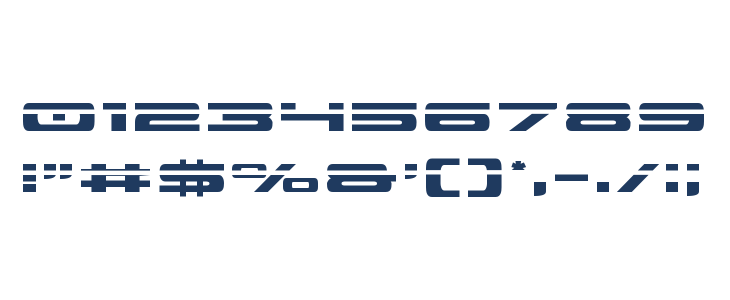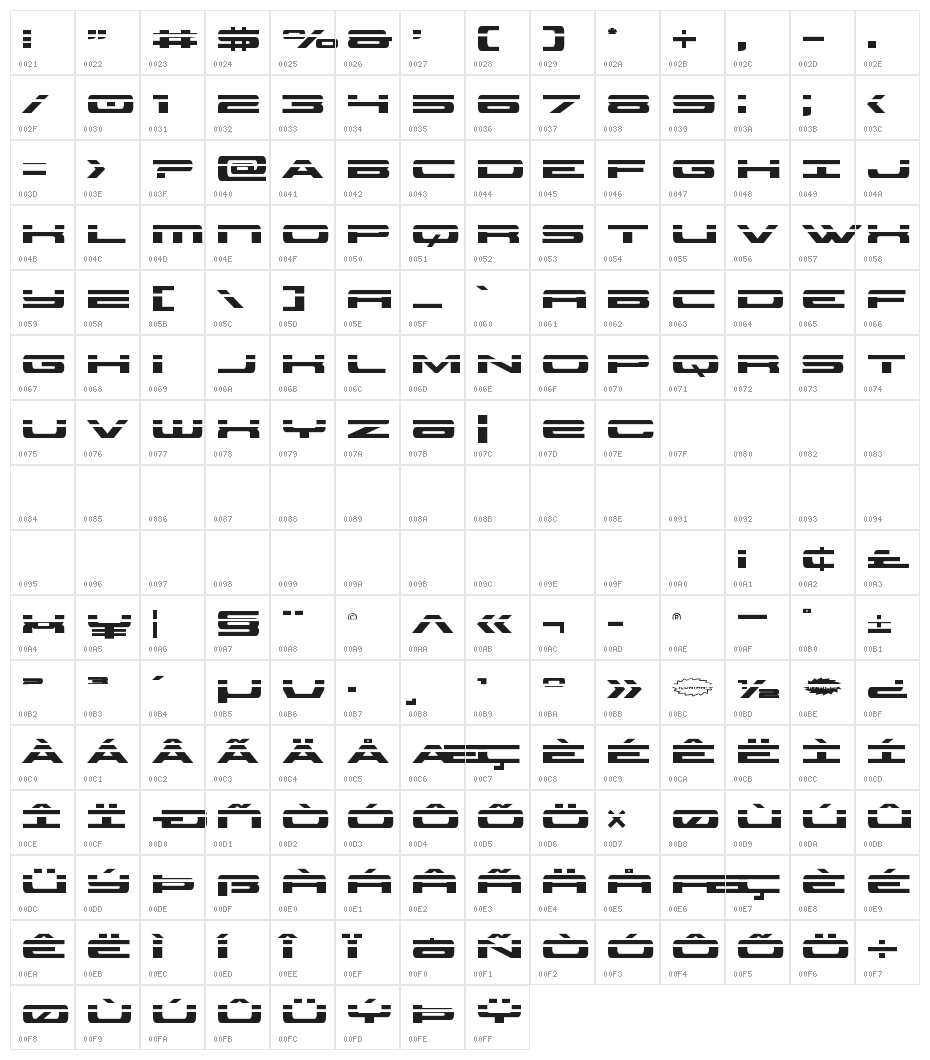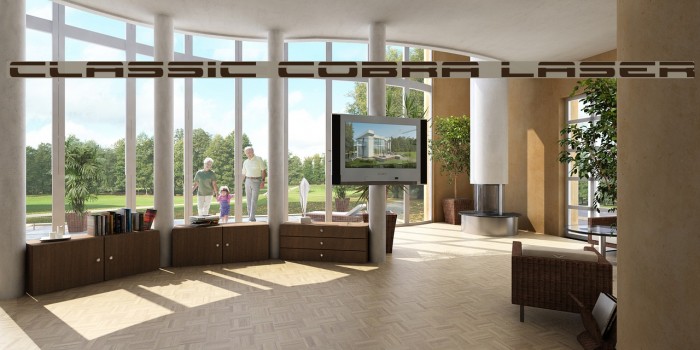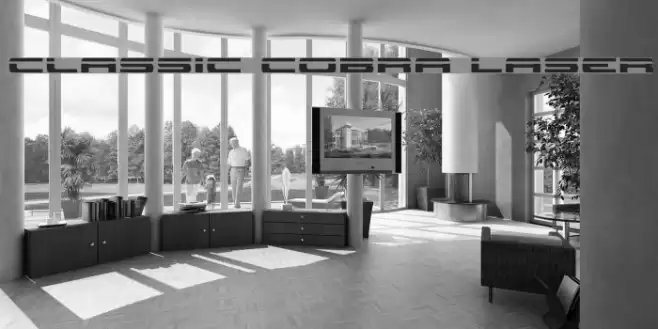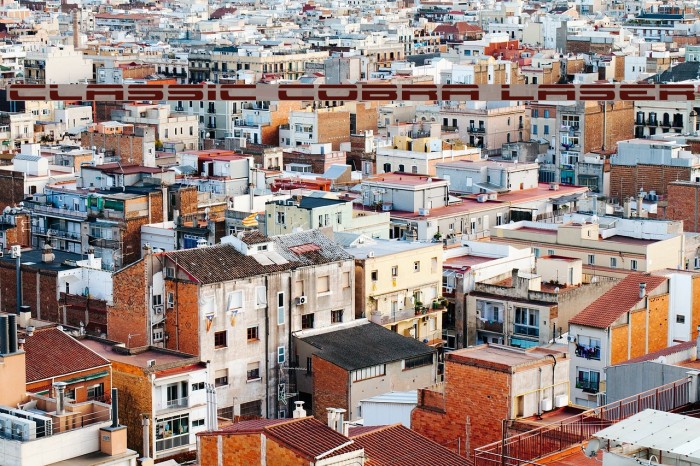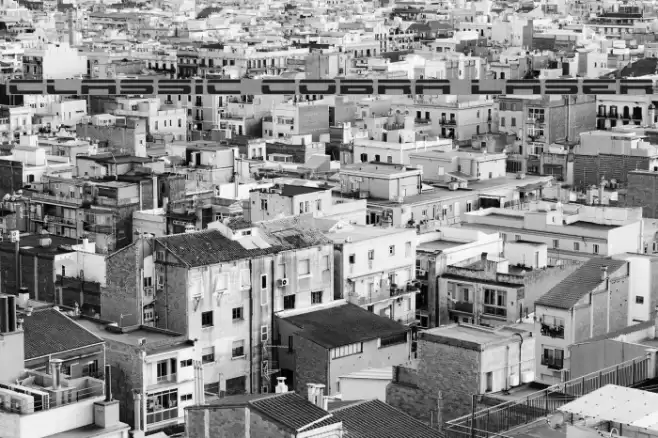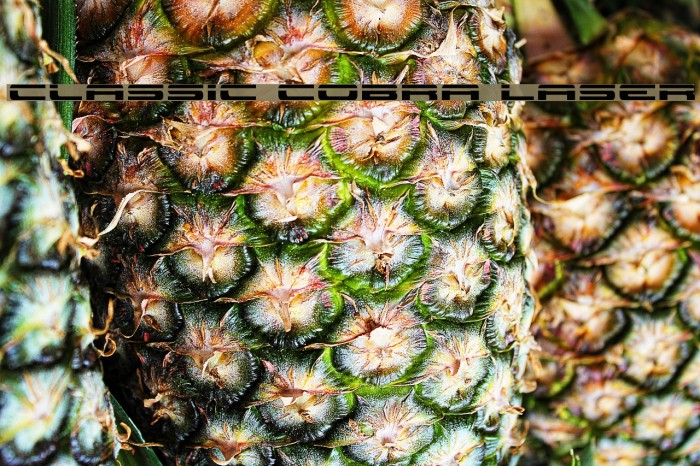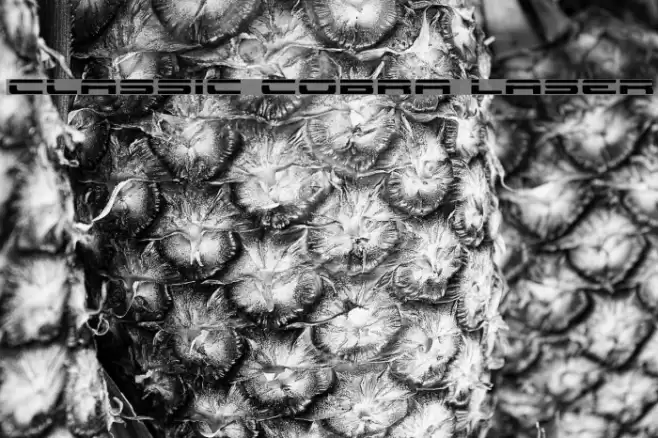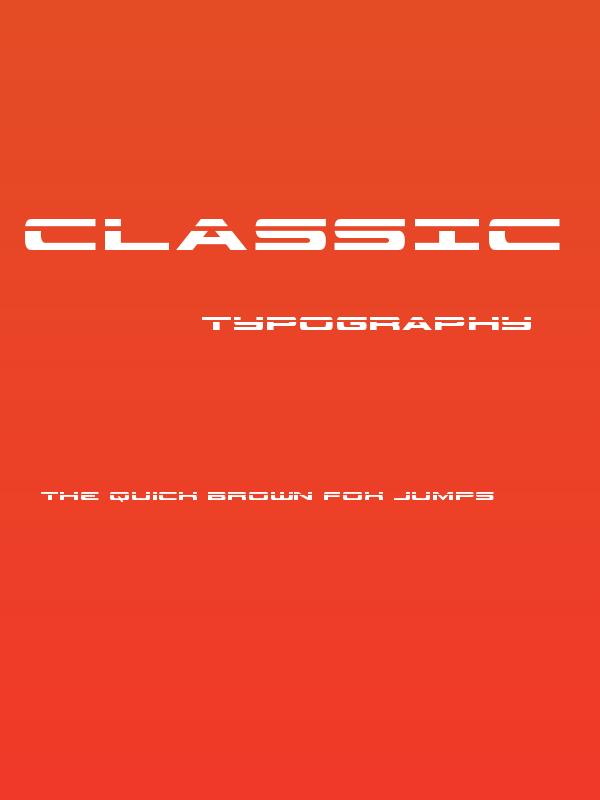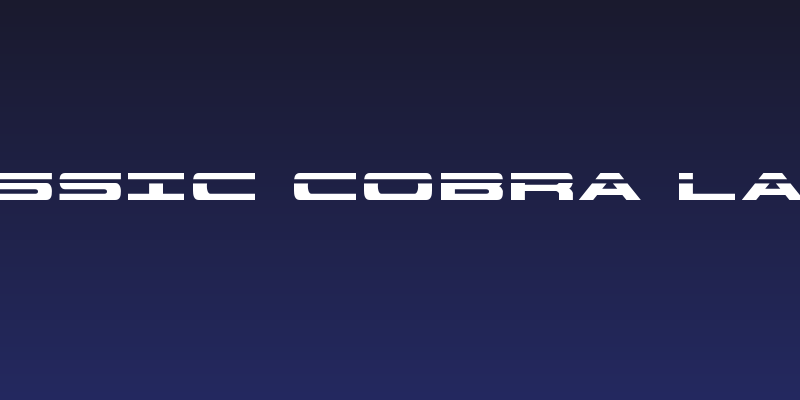
Classic Cobra Laser Font
Classic Cobra Laser Description
This font features a futuristic and bold design with a distinct geometric style. The characters are crafted with sharp angles and clean lines, giving it a modern and edgy appearance. The uppercase and lowercase letters maintain a consistent width, creating a uniform look across the text. The numbers and special characters are designed to match the overall aesthetic, ensuring a cohesive visual experience. This font is ideal for projects that require a strong, contemporary feel, such as technology branding, sci-fi themes, or modern advertising.
| Proposed Projects | Ideal for technology branding, sci-fi themes, modern advertising, and video game design. |